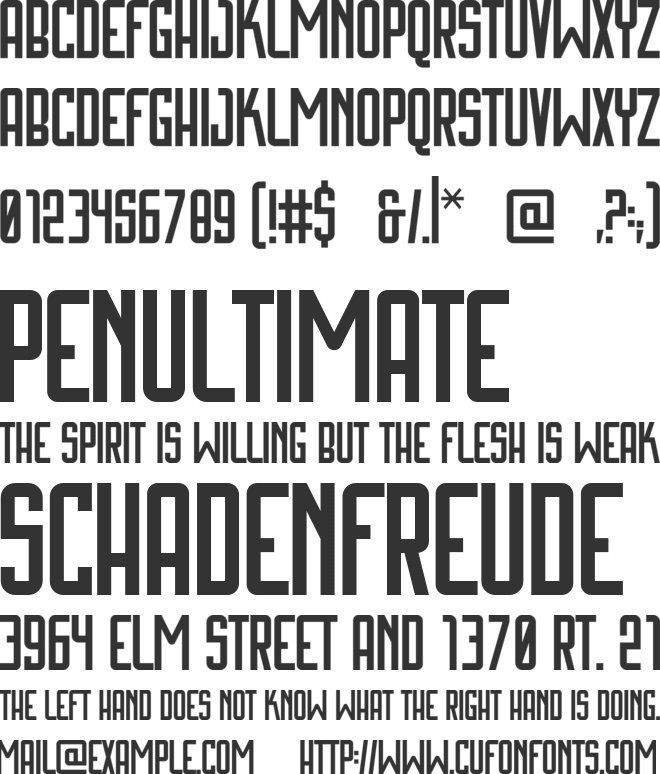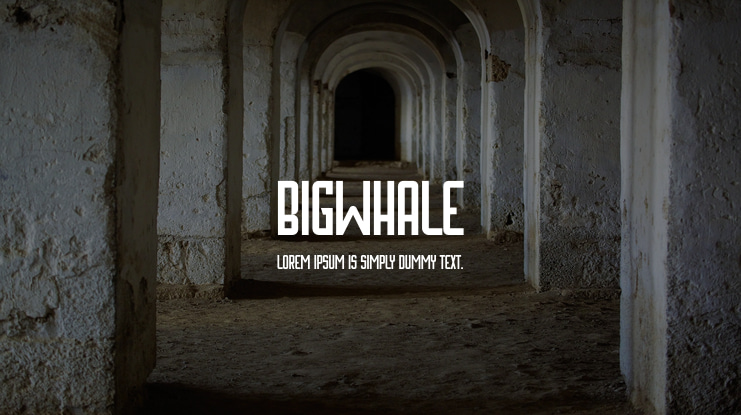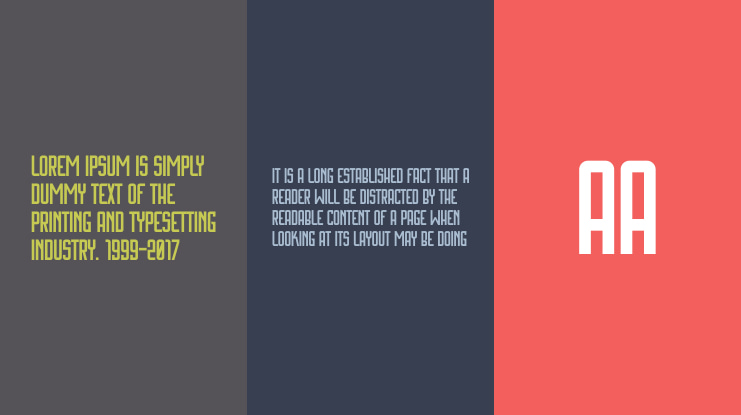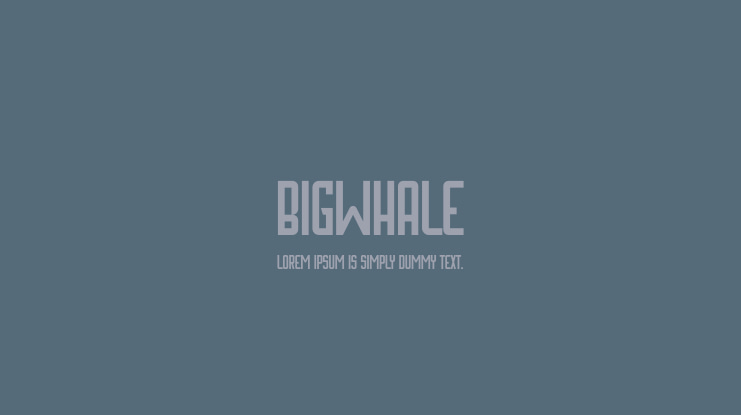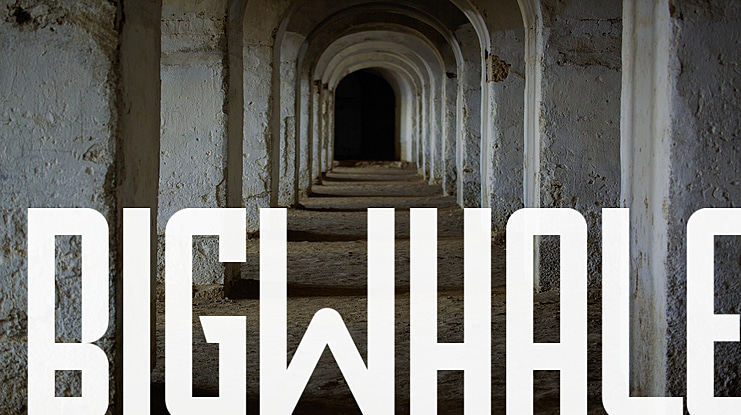
Bigwhale Font
Rodrigo Vargas
BigWhale Display Condesed Font
Bigwhale is a condensed display font. This font is perfect for use in titles with a set of numbers, basic symbols and punctuation, for the letter W has an alternative character. This font also has some bandages for some sets of letters for further customization of your designs.